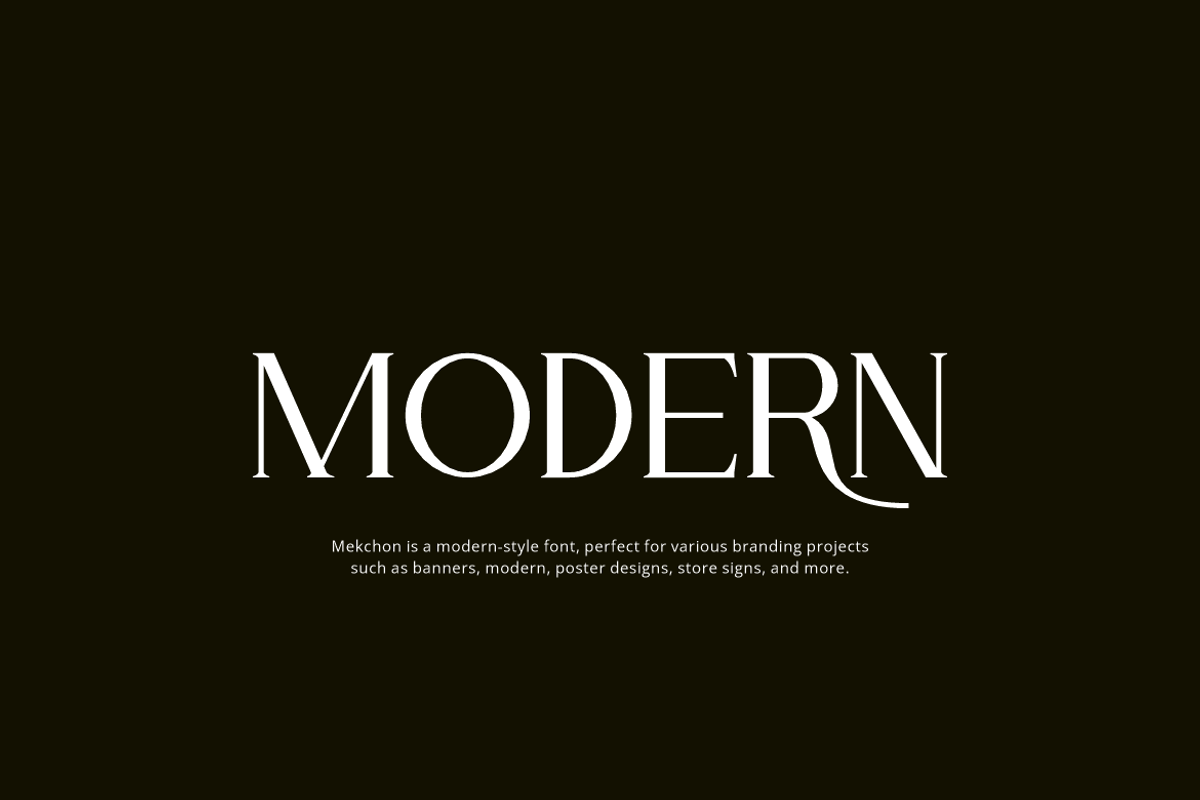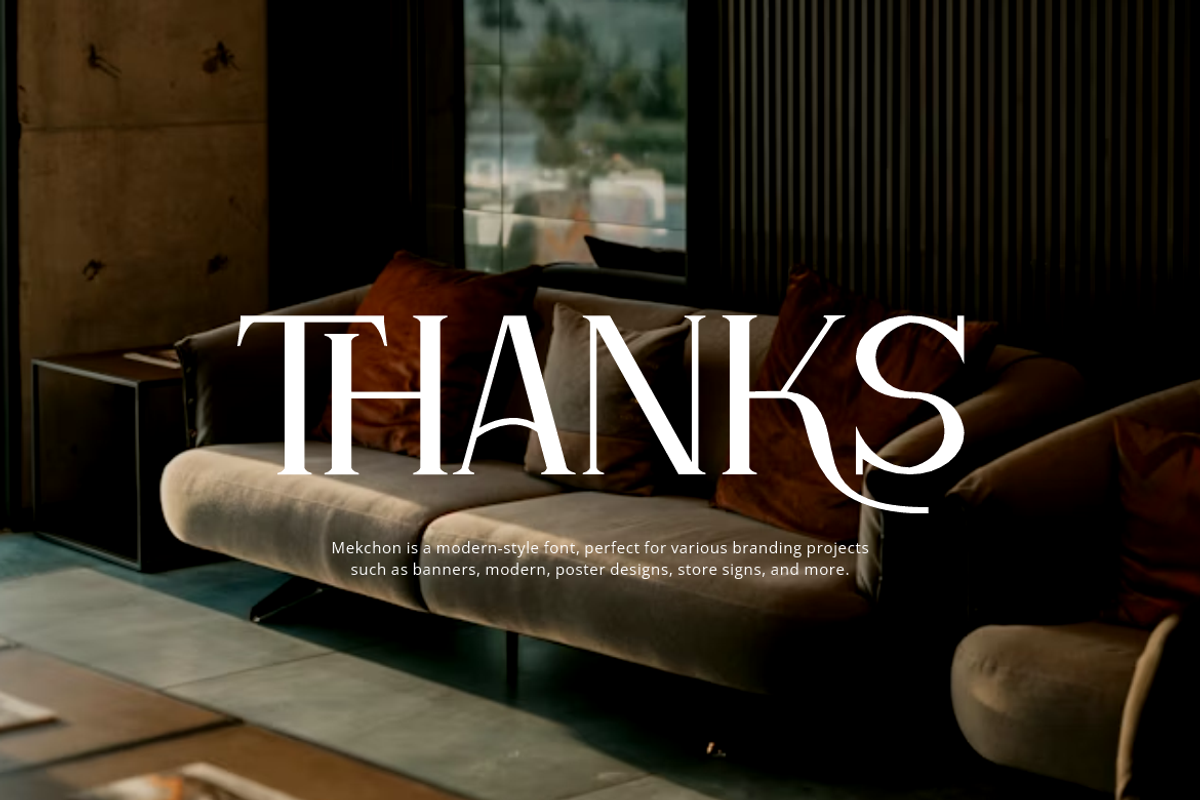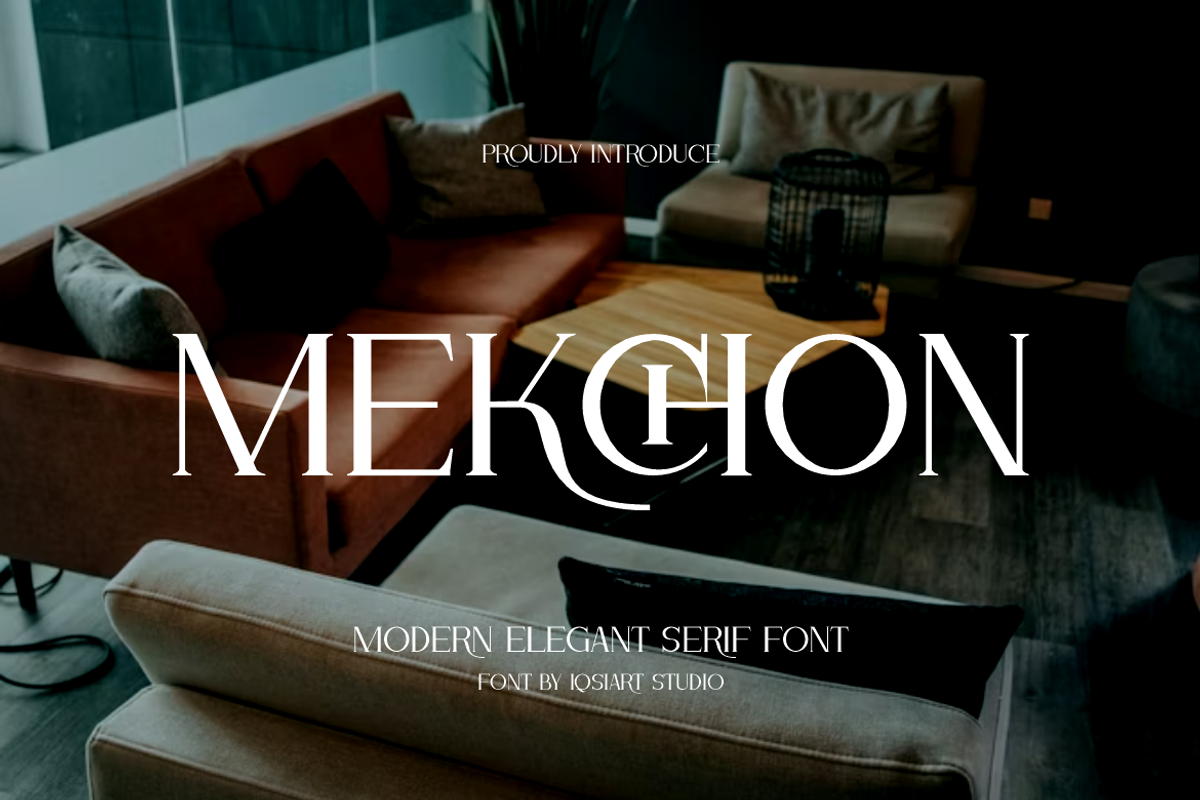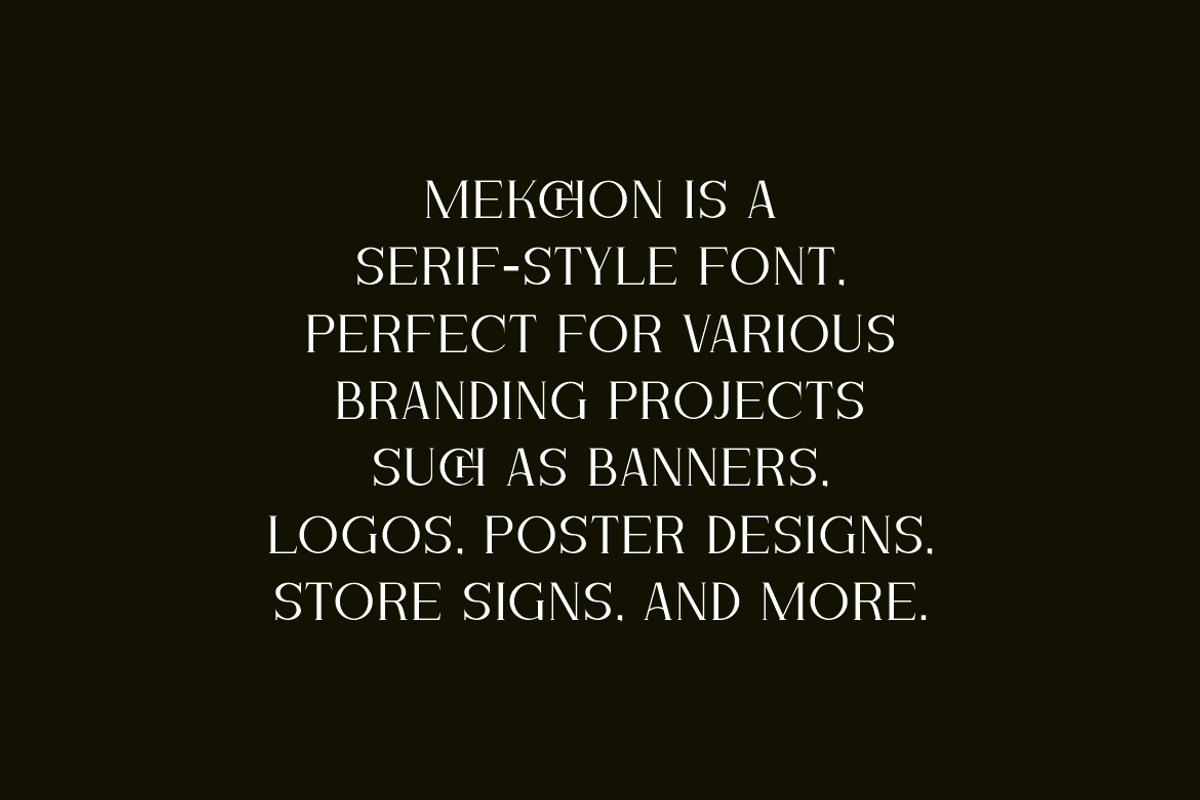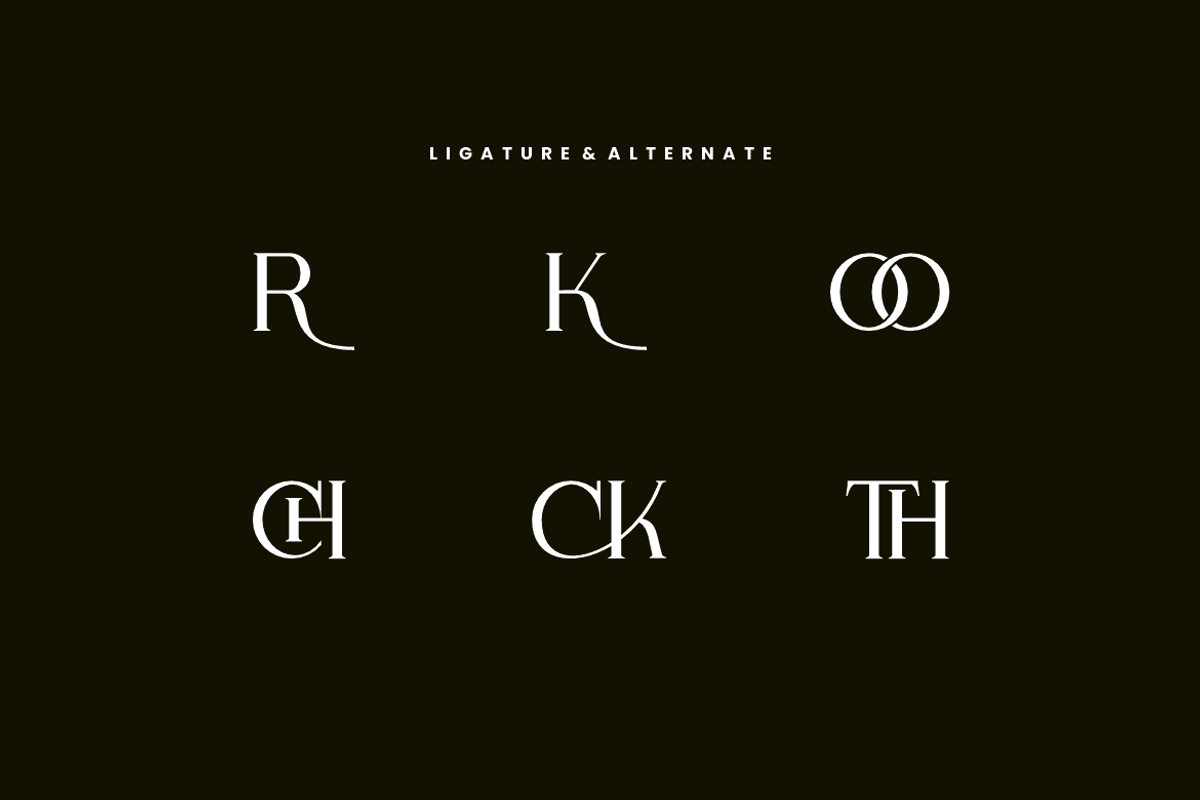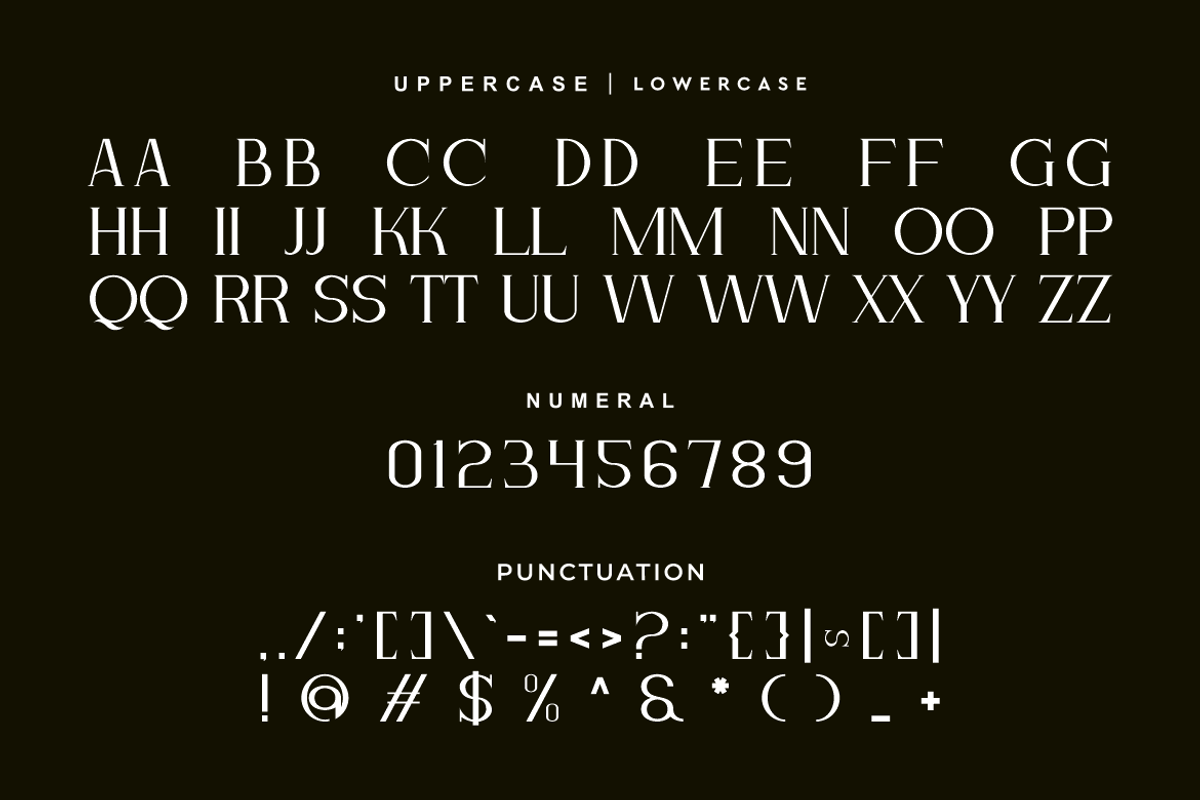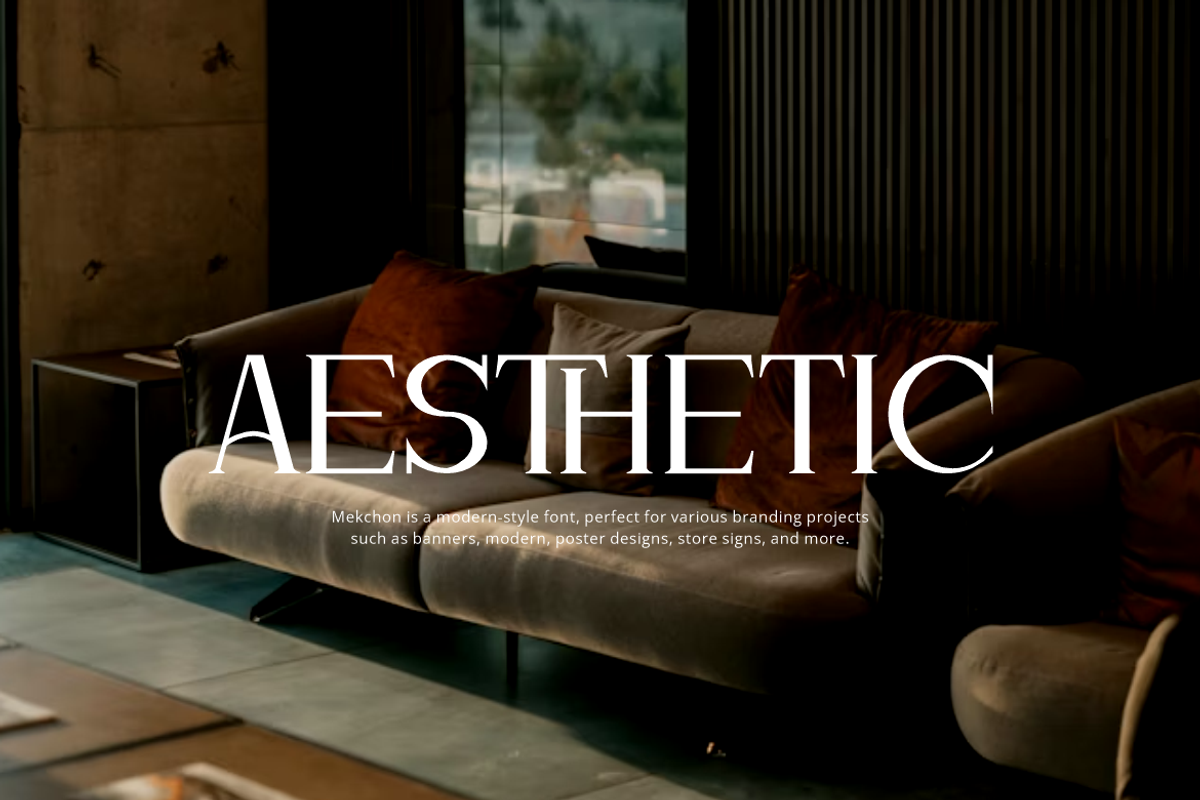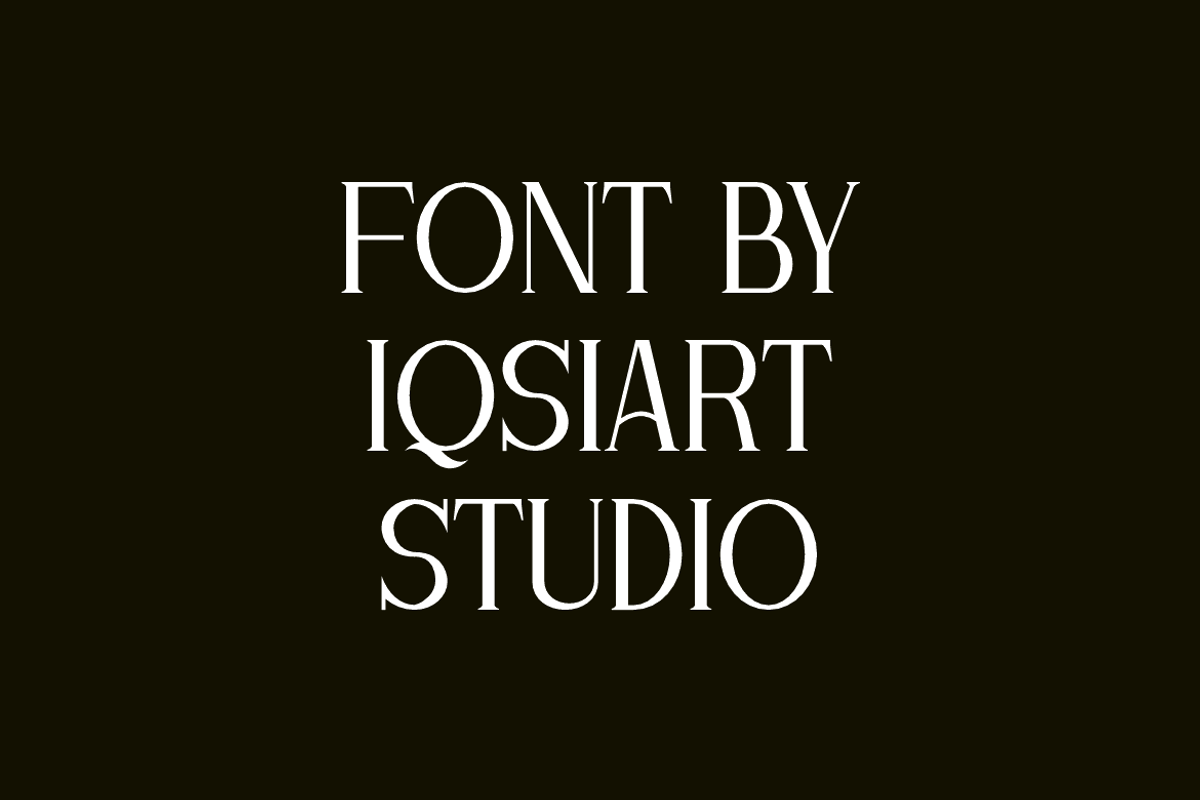
Mekchon - Aesthetic Serif Font
Mekchon Font is a serif and authentic display typeface that suits a variety of design needs. We offer a wide range of themes and font styles — visit our profile to explore more and find the perfect style for your project.